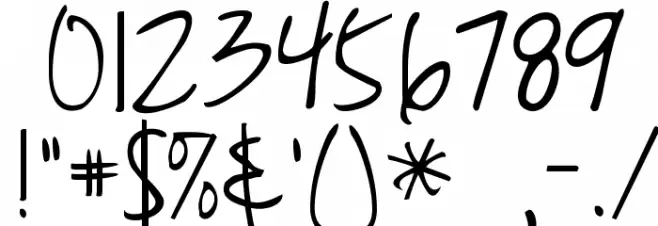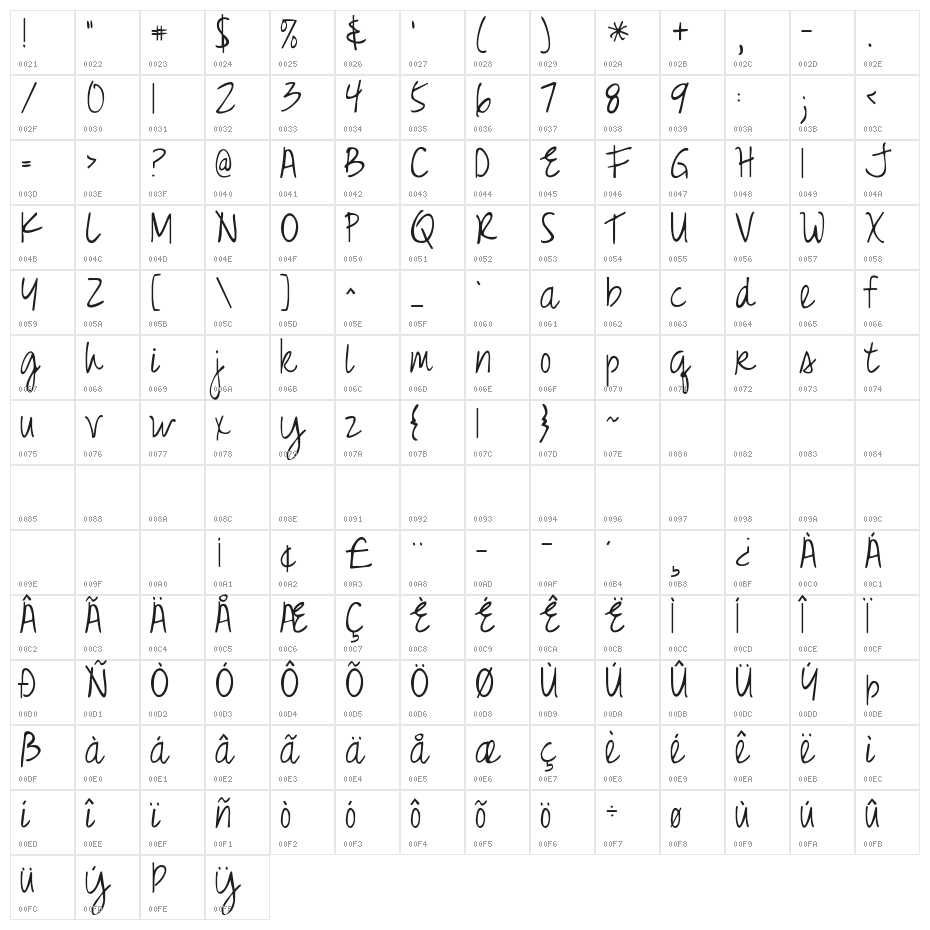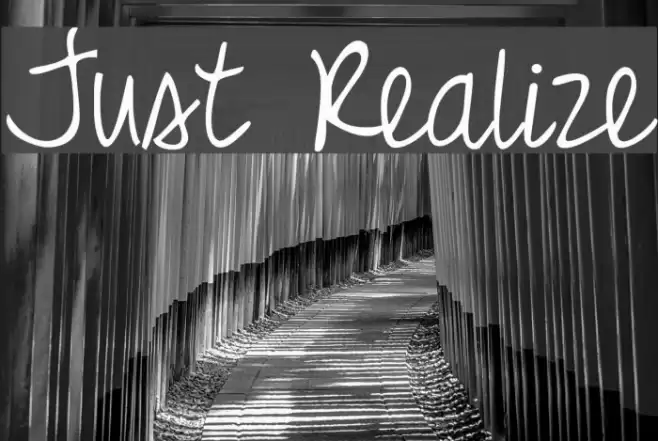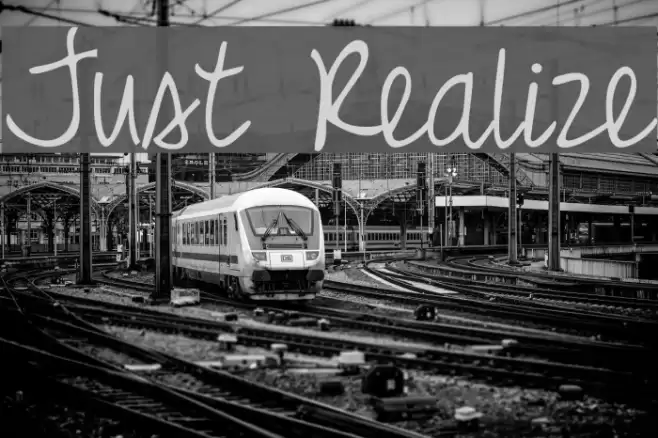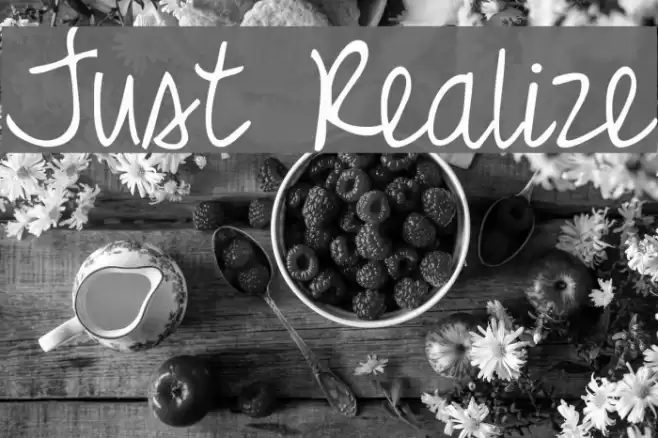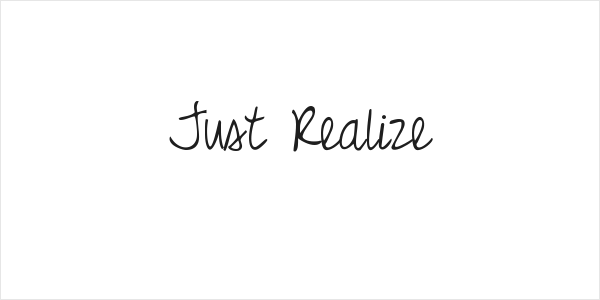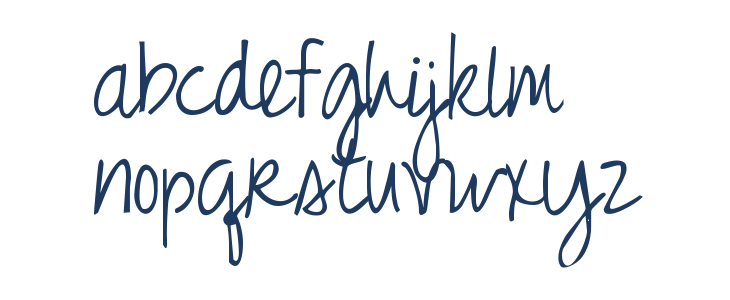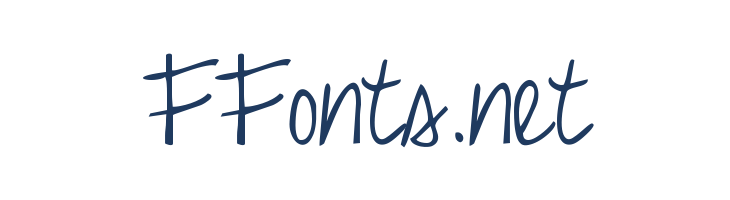
Just Realize Font
Just Realize Description
This font exudes a casual, handwritten style that is both approachable and dynamic. The letters are slightly slanted, giving a sense of movement and fluidity. The strokes are consistent in thickness, providing a uniform appearance that enhances readability. The uppercase and lowercase letters are well-proportioned, with a playful yet legible design. Numbers and special characters maintain the same handwritten aesthetic, making this font versatile for various uses. The overall look is informal and friendly, perfect for projects that require a personal touch.
Overall StyleCasual, Informal
Use CaseHeadlines, Informal text, Creative projects
Proposed ProjectsIdeal for greeting cards, personal blogs, informal invitations, and creative branding projects.